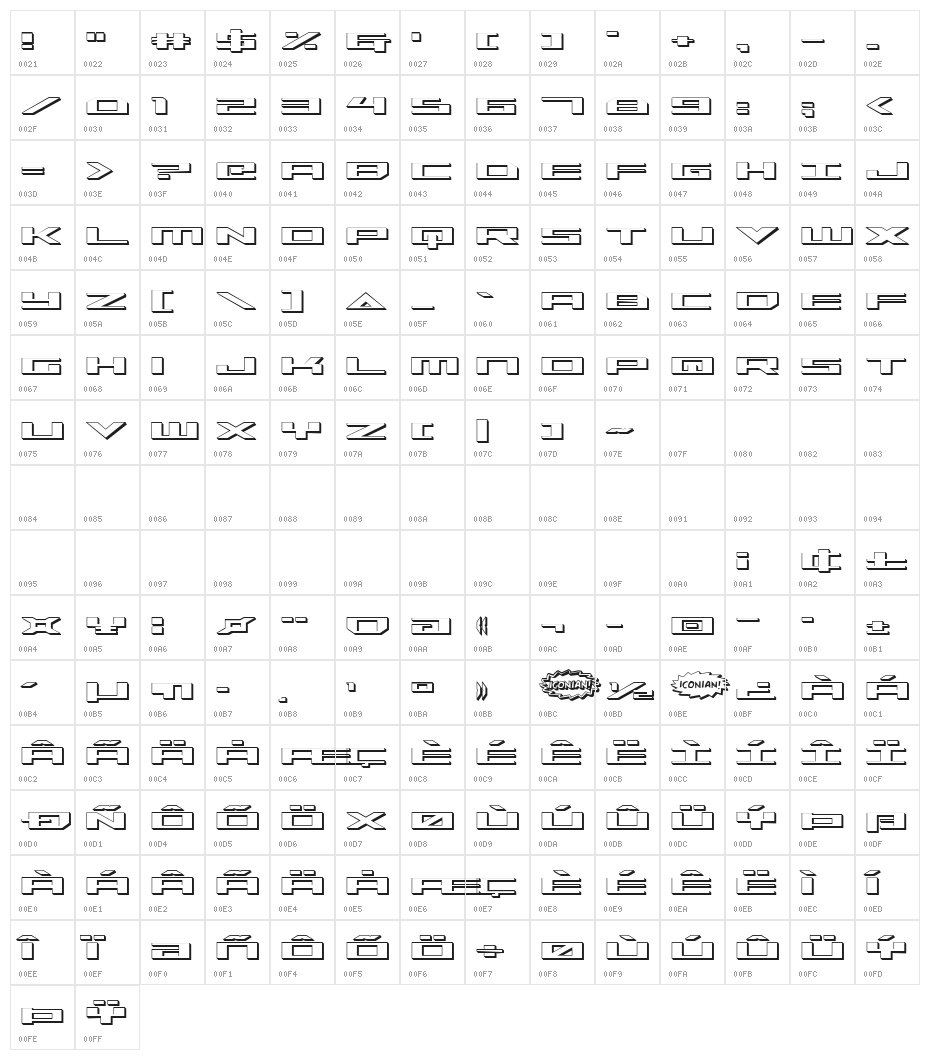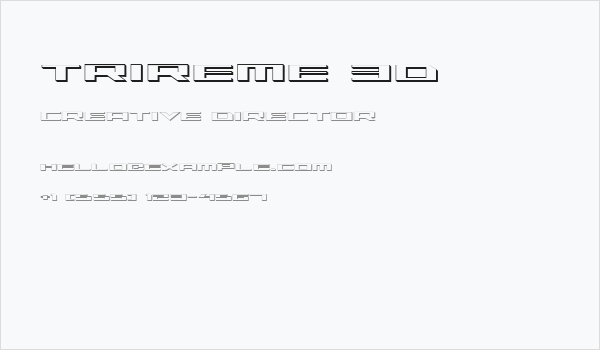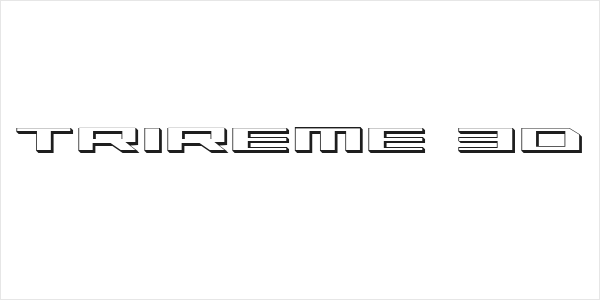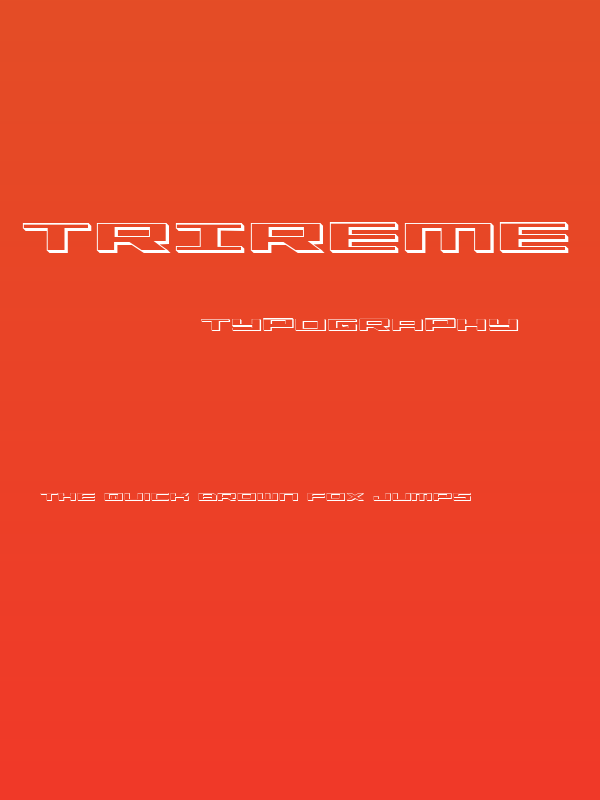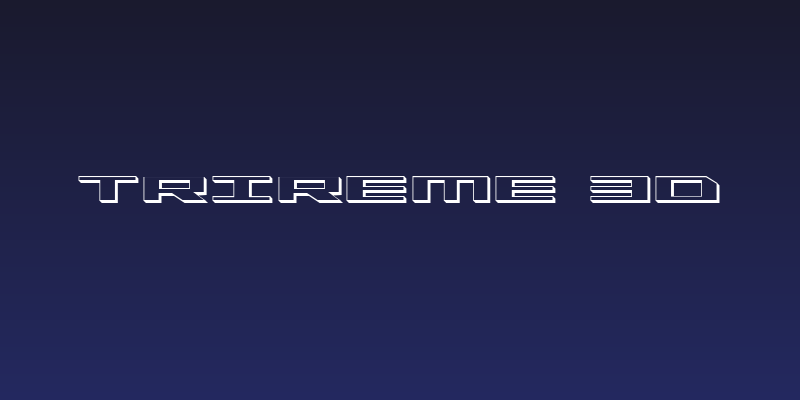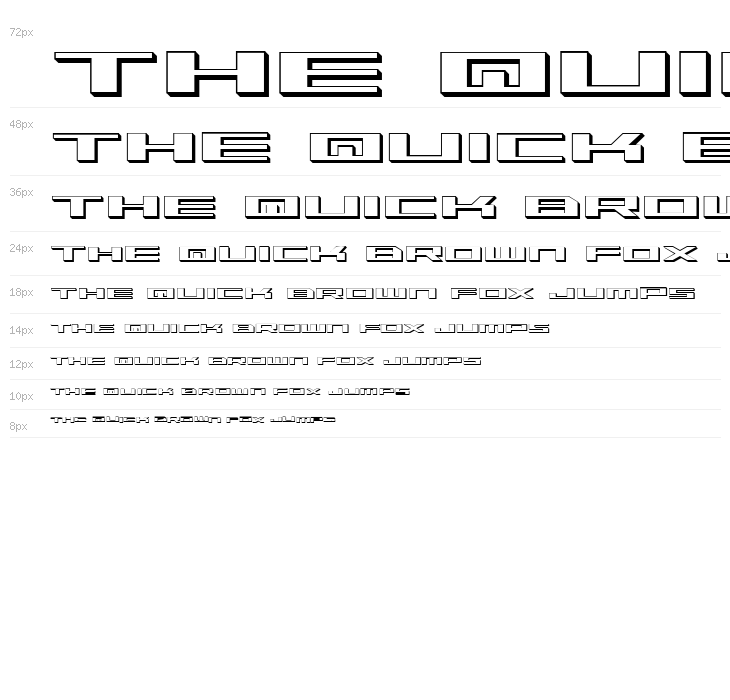
Trireme 3D Font
Trireme 3D Description
This font features a bold, geometric design with a three-dimensional effect, creating a futuristic and dynamic appearance. Each character is constructed with sharp angles and clean lines, giving it a structured and modern look. The uppercase and lowercase letters maintain a consistent style, with the uppercase being slightly more pronounced. Numbers and special characters are designed to match the overall aesthetic, ensuring uniformity across all glyphs. The font's unique 3D effect is achieved through a clever use of line work, providing depth and a sense of movement. This makes it particularly suitable for projects that require a contemporary and eye-catching typeface.
| Proposed Projects | Perfect for futuristic branding, tech-related projects, video game titles, and sci-fi themed posters. |